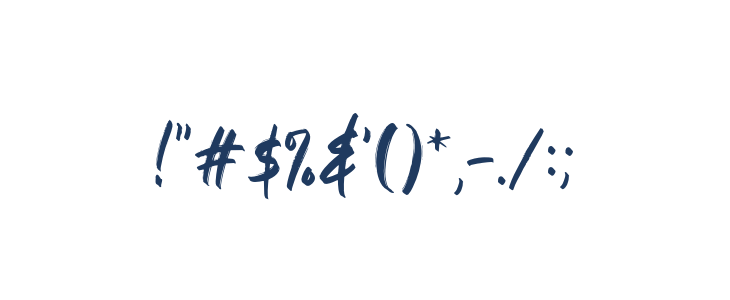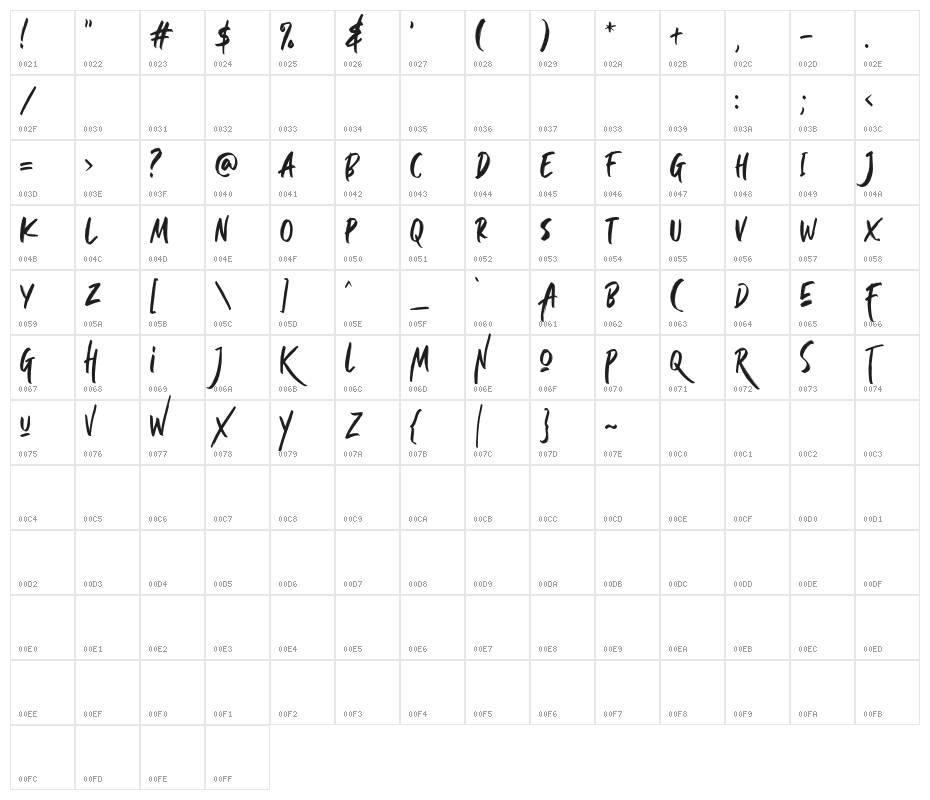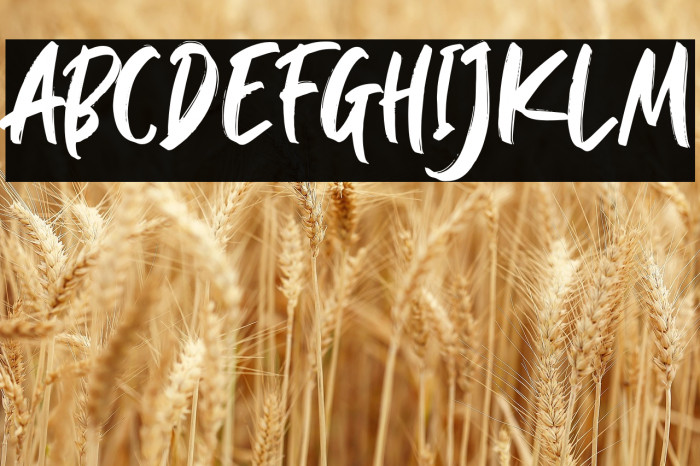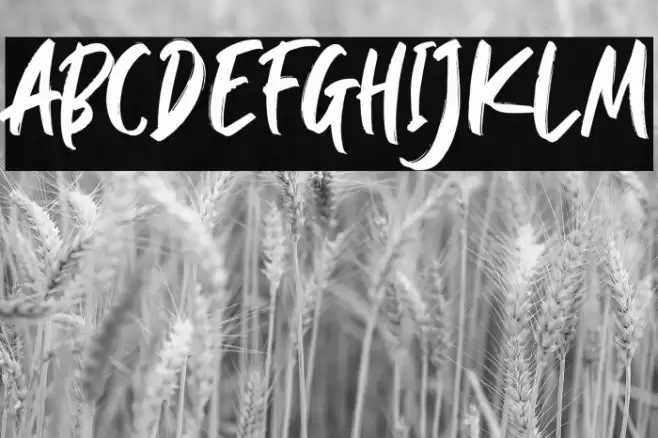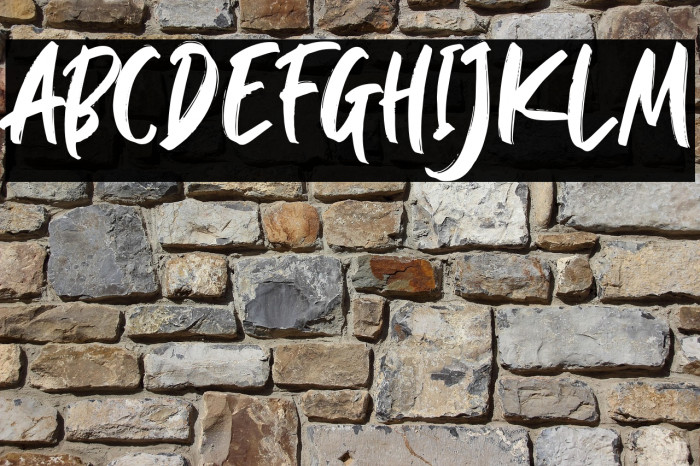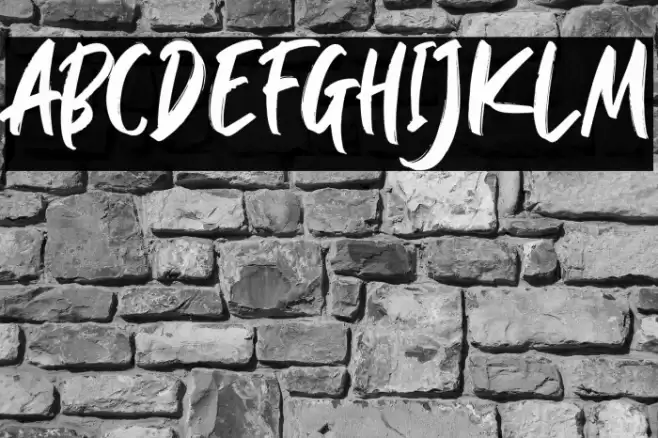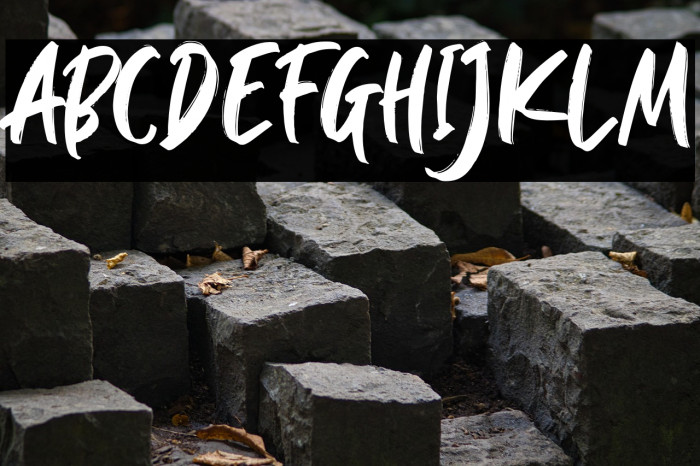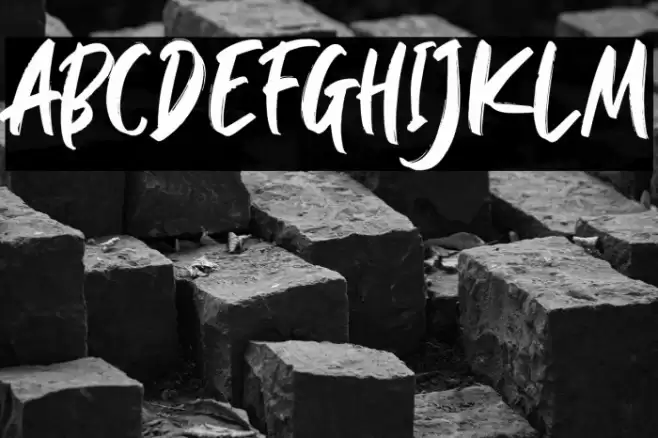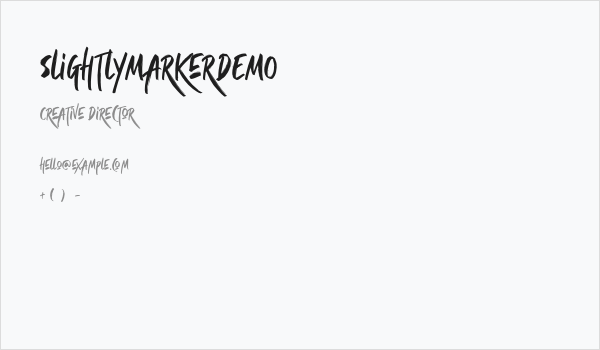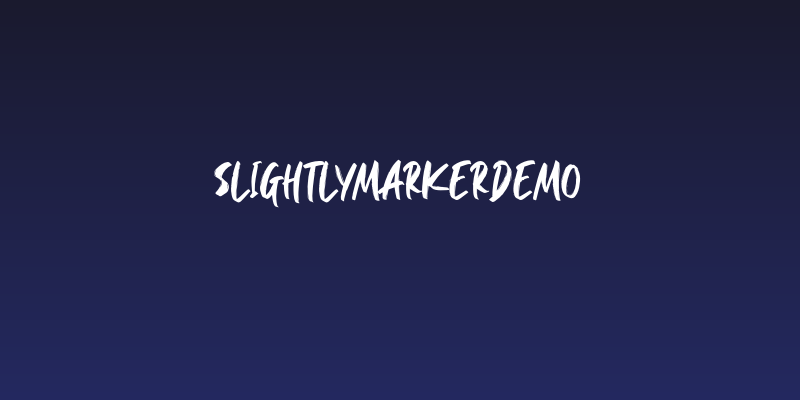
SlightlyMarkerDEMO Font
SlightlyMarkerDEMO Description
This font exudes a dynamic and energetic style, reminiscent of hand-drawn marker strokes. The characters are bold and expressive, with a slightly irregular baseline that adds a sense of movement and spontaneity. The uppercase letters are particularly striking, with exaggerated curves and angles that give them a unique flair. The lowercase letters maintain this lively aesthetic, complementing the uppercase set with their own distinct personality. The numbers and special characters follow suit, ensuring a cohesive look across all glyphs. This font is perfect for projects that require a personal touch or a bold statement.